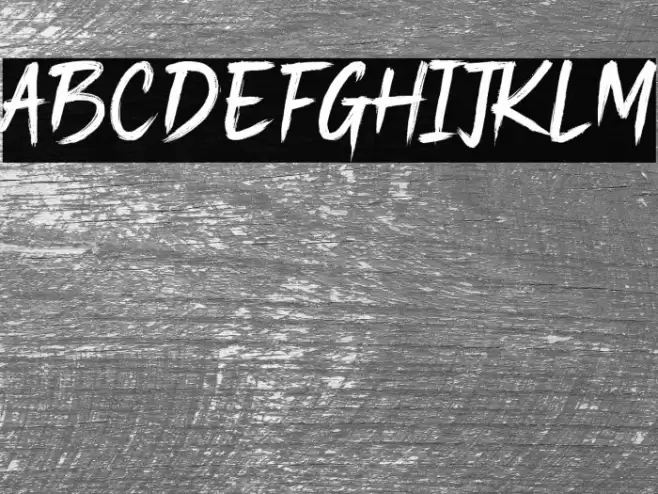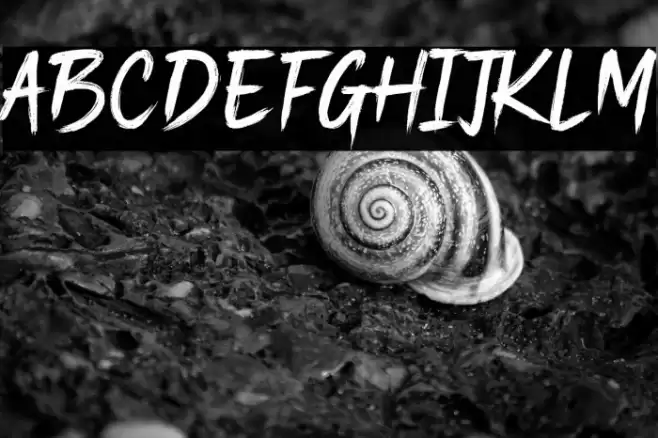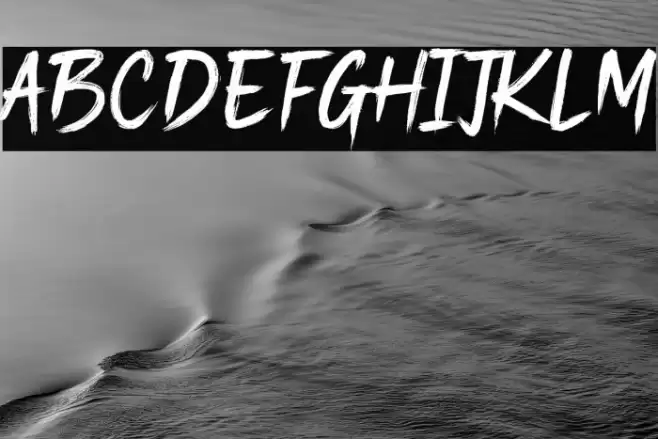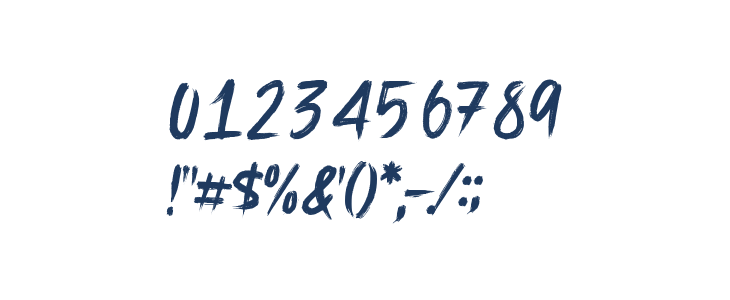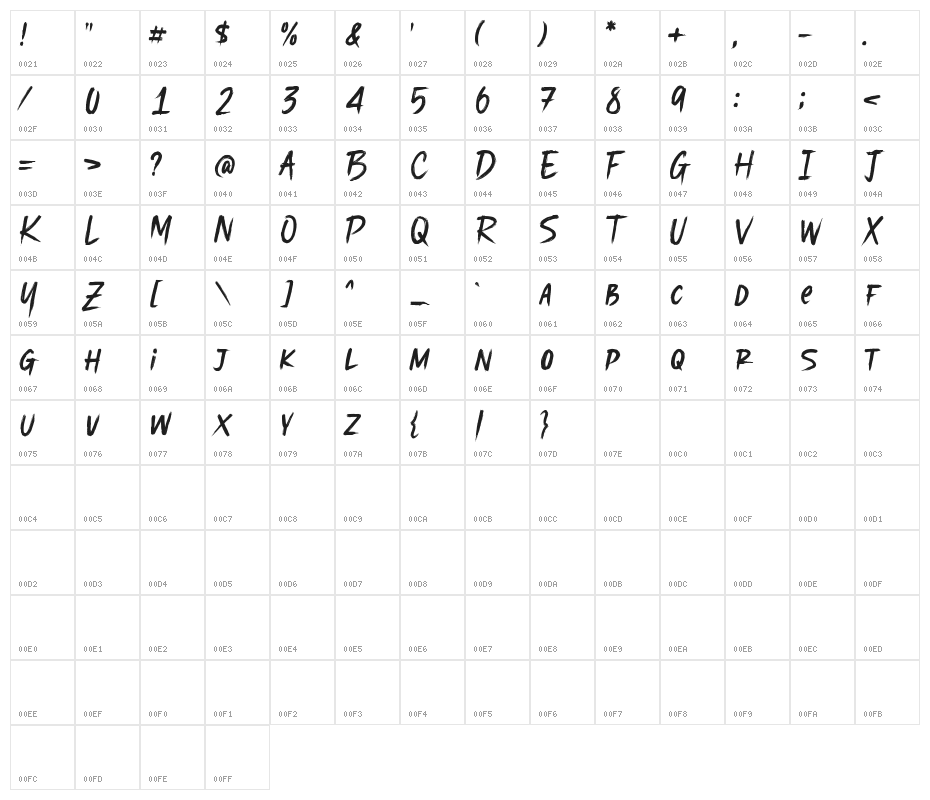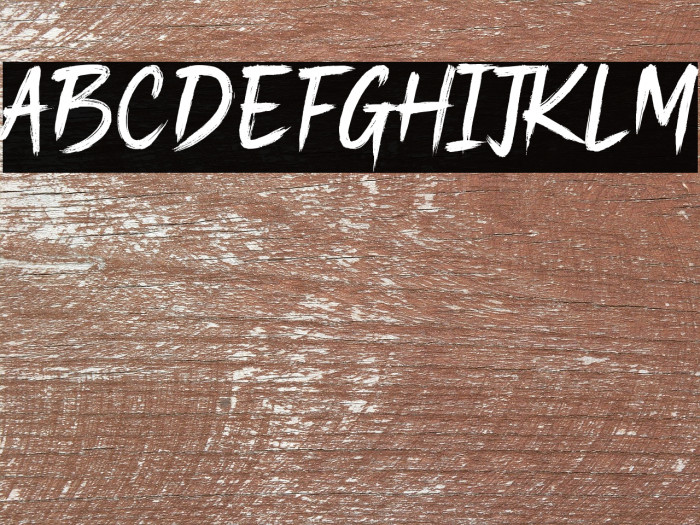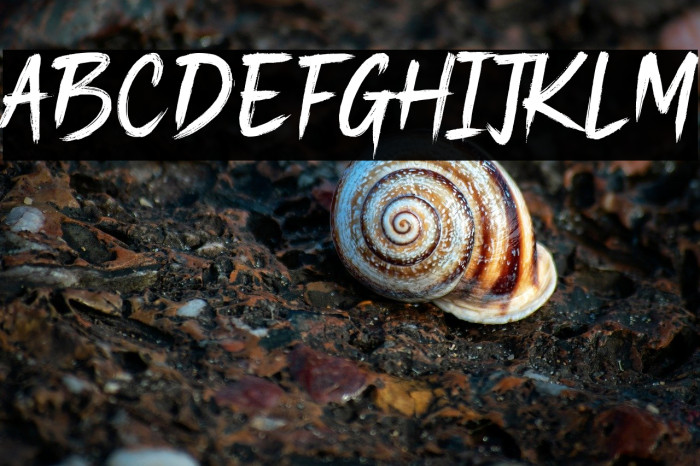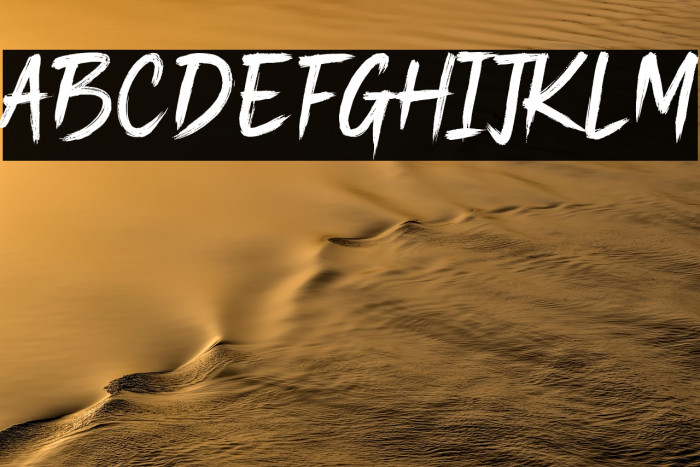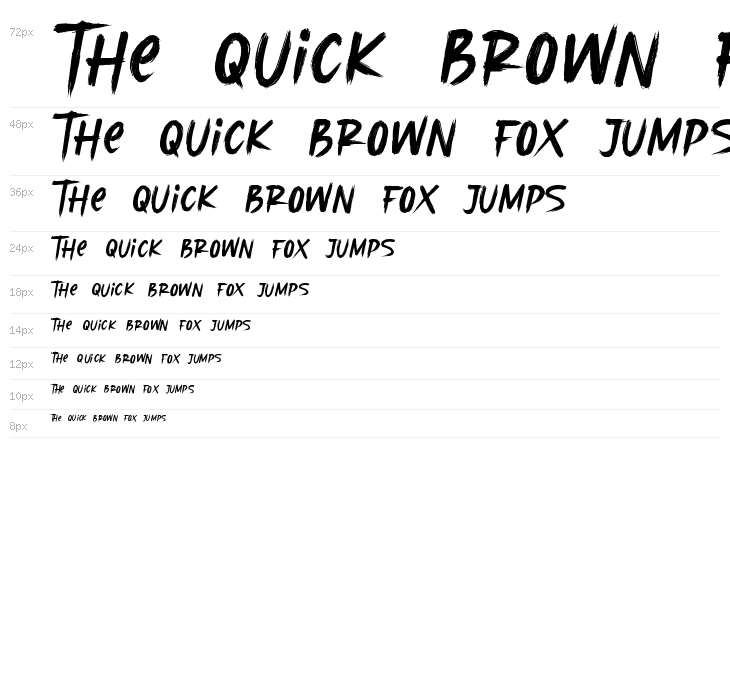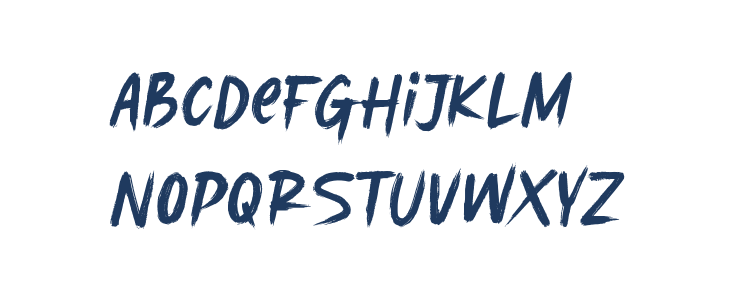
Moviecal Font
This font features a bold and dynamic brush script style, characterized by its energetic and expressive strokes. The letters have a hand-painted appearance, with irregular edges and varying thickness that give it a lively and spontaneous feel. The uppercase and lowercase letters maintain a consistent style, while the numerals and special characters complement the overall aesthetic. This font is designed to capture attention and convey a sense of movement and creativity, making it ideal for projects that require a bold and artistic touch.
A bold, dynamic brush script font with expressive strokes from Uncategorized fonts.
- Proposed Projects: Ideal for posters, album covers, branding, and creative advertising campaigns.